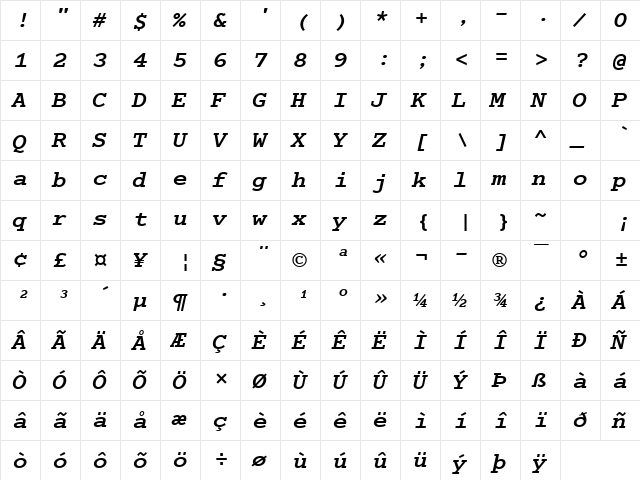
Cumberland Bold Italic
| Foundry | Agfa Monotype Corporation |
| Designer | Agfa Monotype Drawing Office |
Design Context for Cumberland Typeface
Cumberland offers clean, dependable letterforms without strong stylistic allegiance, making it a practical choice for designers who need flexibility. The dynamic lean of this cut emphasises speed and emphasis in any layout. The heavy weight commands attention and anchors typographic hierarchies.
Pro Tip: Try Cumberland for annotation and caption copy alongside an upright companion — the contrast in angle creates a dynamic but ordered typographic system.